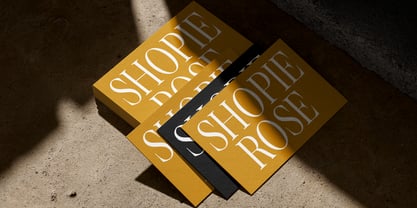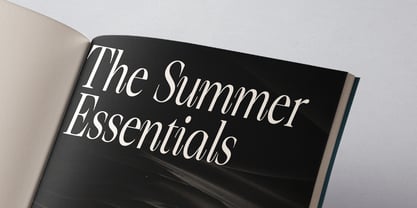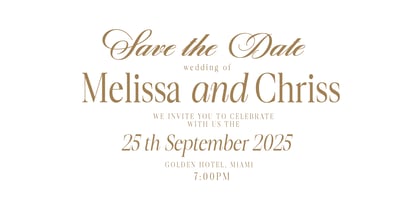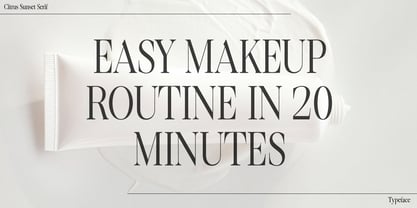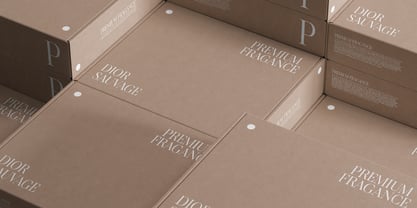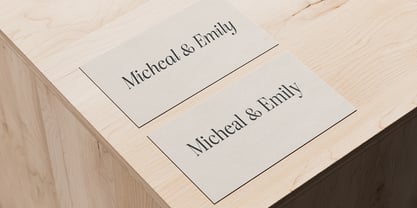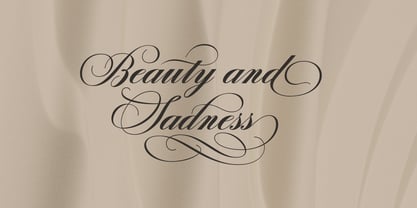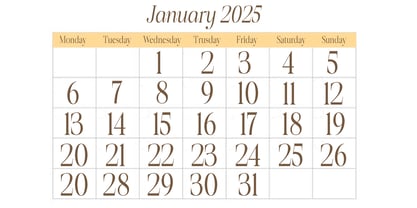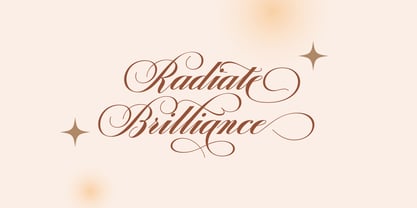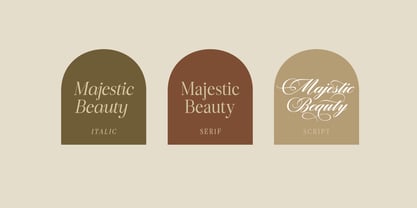
Citrus Sunset
by Typehill Studio
The Citrus Sunset Font Family was designed by Teuku Fahruddin and published by Typehill Studio. Citrus Sunset contains 3 styles and family package options.
Citrus Sunset is a 2-font script and serif font that creates a dynamic contrast that can add sophistication and personality to any design.
Citrus Sunset includes support for multiple languages. Featuring OpenType with alternates, ligatures, and stylized characters, it allows you to mix and match letter pairs to suit your design, as well as a touch of ornamentation to make this font look elegant.